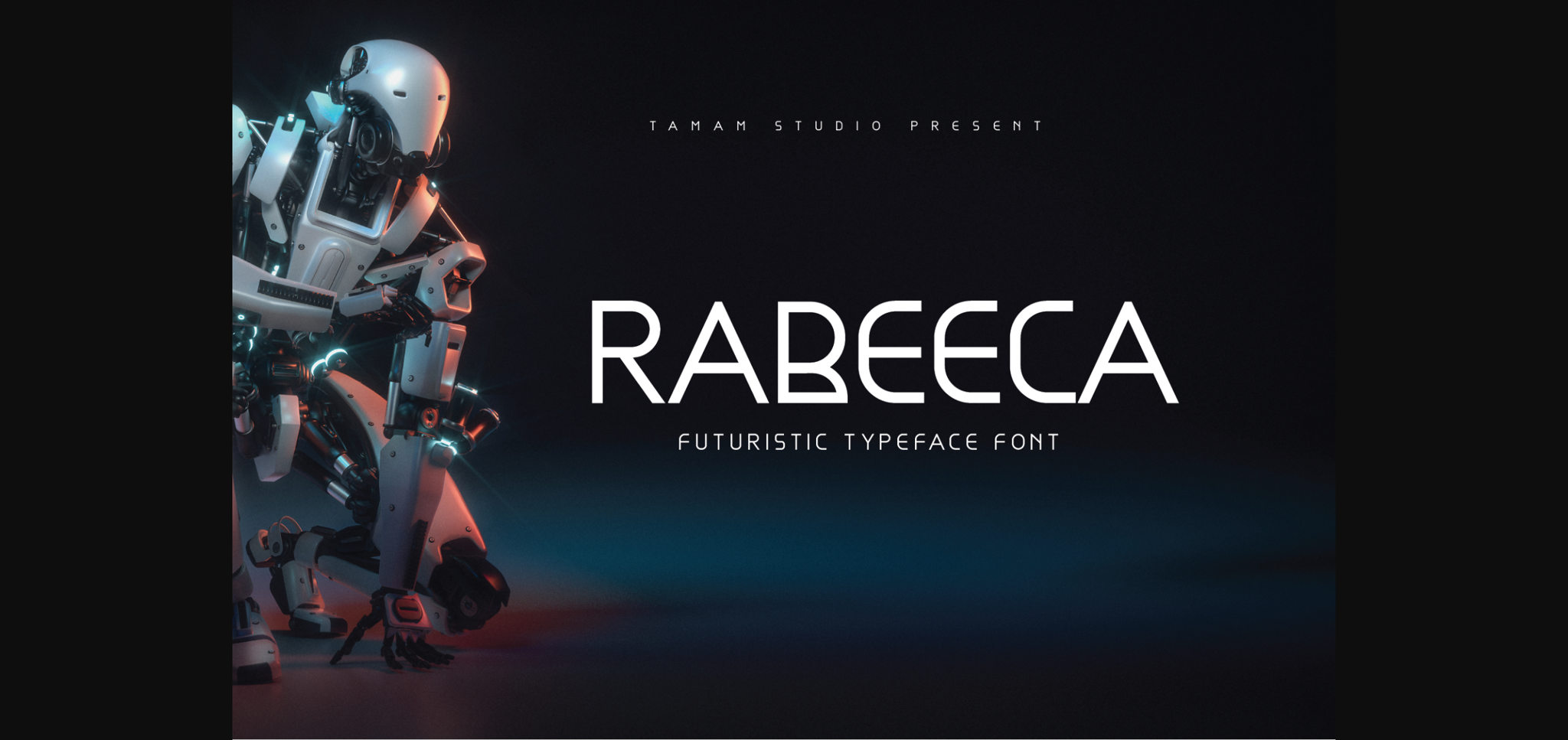
About Rabeeca Font
Rabeeca is a minimal and futuristic sans serif font. It can easily be matched to an incredibly large set of projects, so add it to your creative ideas and notice how it makes them stand out!